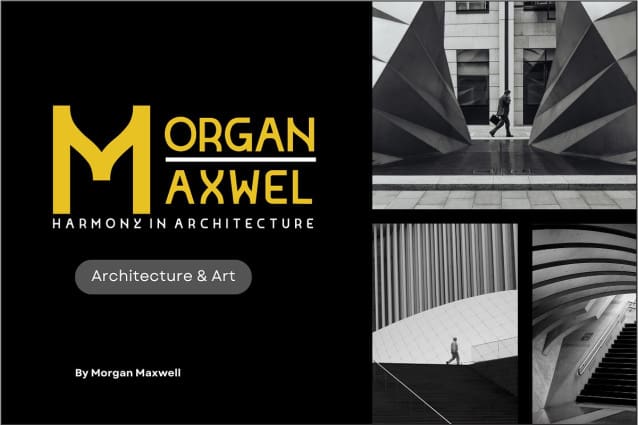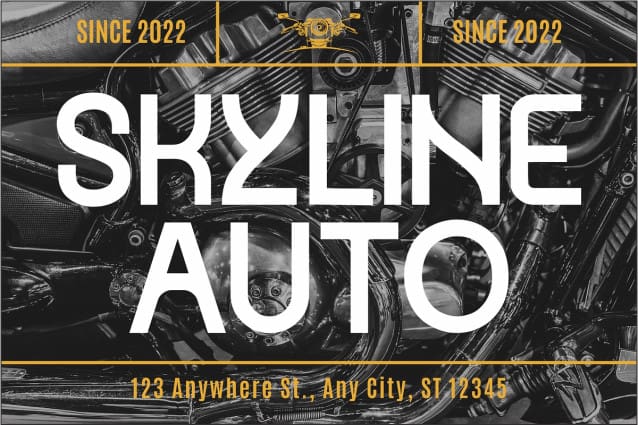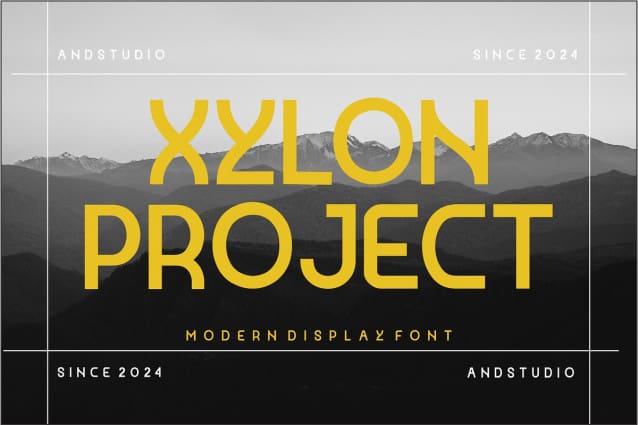
Xylon Project Font
Xylon Project Font – a cutting-edge font that embodies the essence of modern technology and elegant design. Perfectly crafted for the digital age, XylonProject combines futuristic aesthetics with precise geometry to bring your creative projects to life.